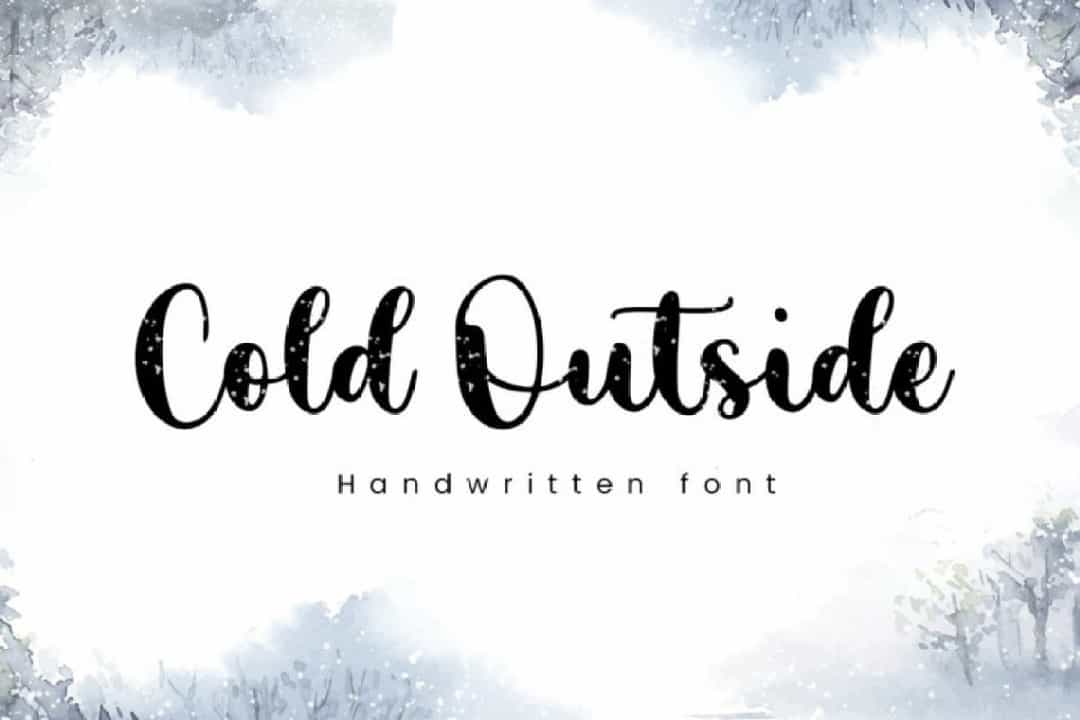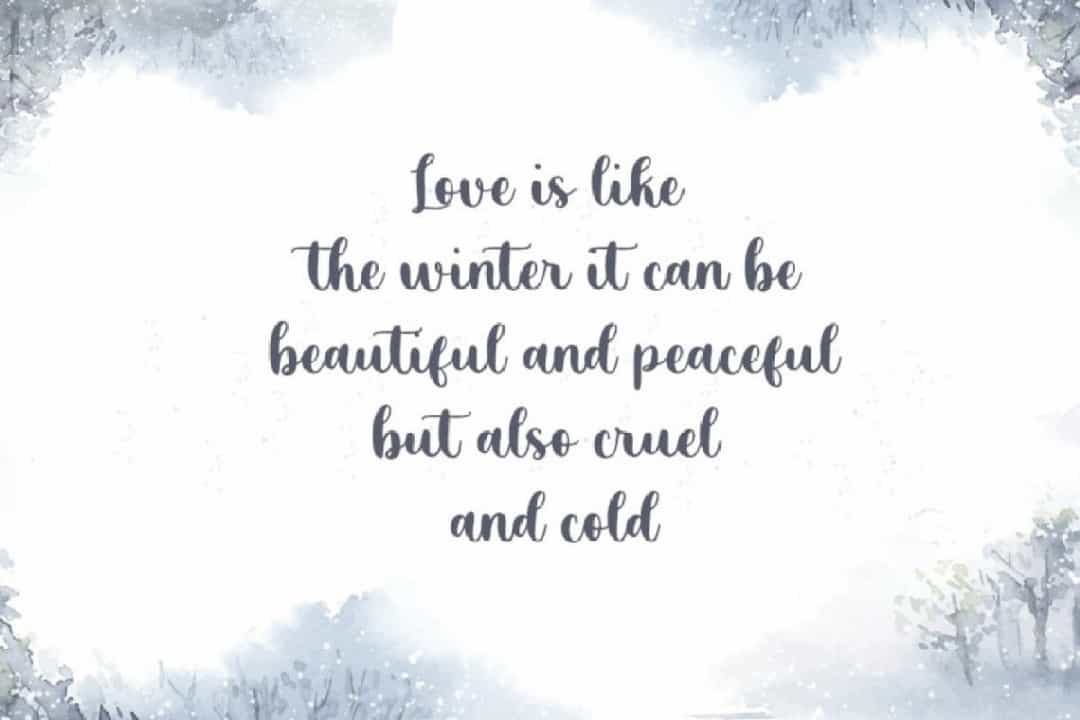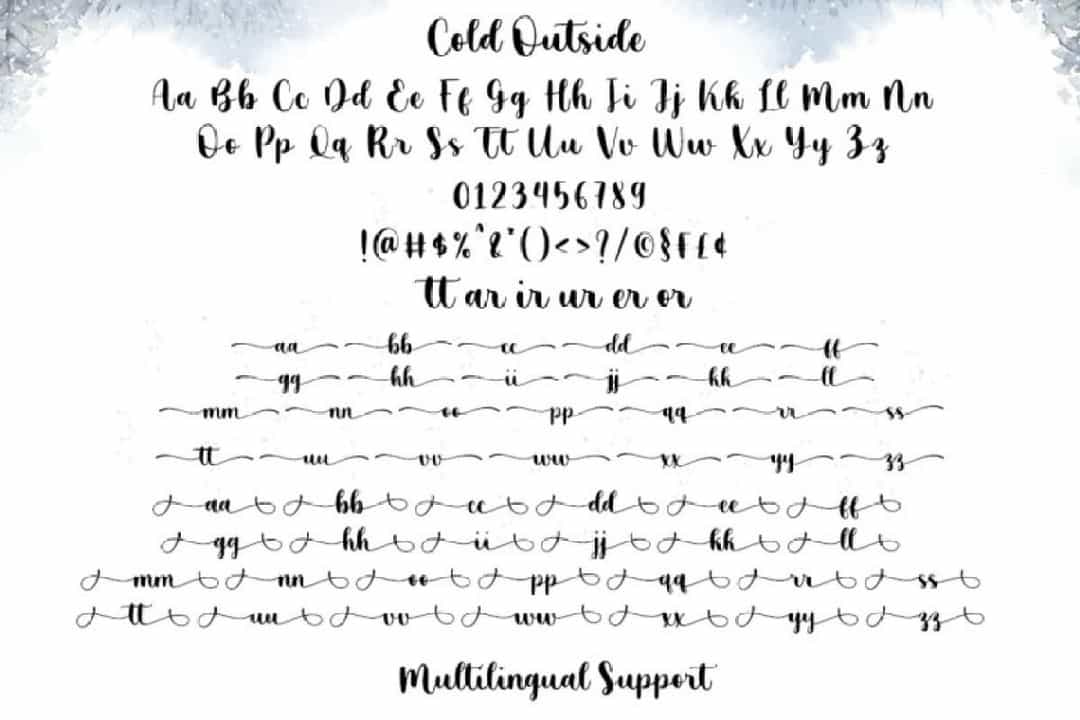
Discover Cold Outside Font, part of the Calligraphy Handwritten Script Personal collection—a versatile and unique font perfect for adding a personal touch to your projects. Download it for free and enjoy crafting designs with style, from invitations to social media posts. This font is available exclusively for personal use, giving you the freedom to create without limits. Unlock your creativity with Cold Outside Font today!
Cold Outside is a beautiful handwritten font that will be great for branding company, invitations and wedding stationery, ad’s, social media, packaging of products and designs, labels, watermark for any special event or any special day or celebrations of any sort.